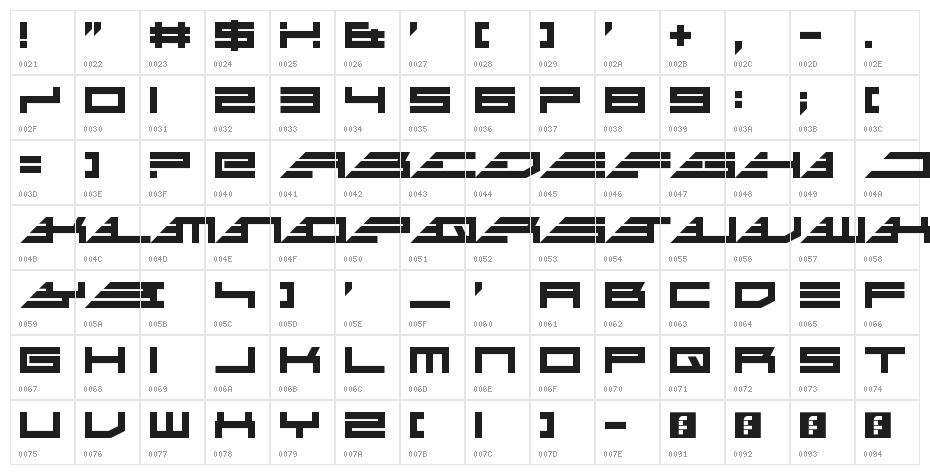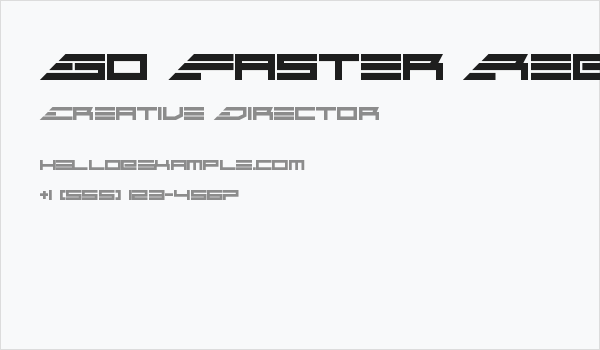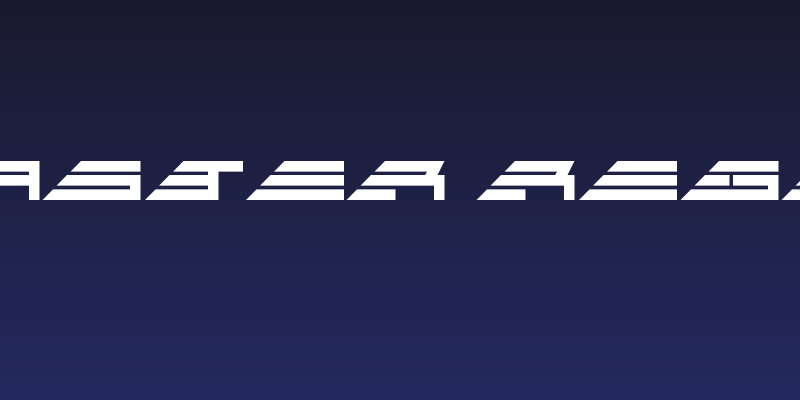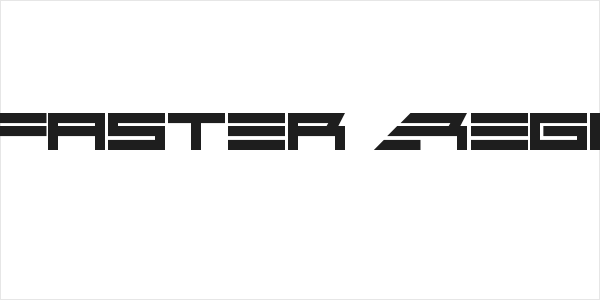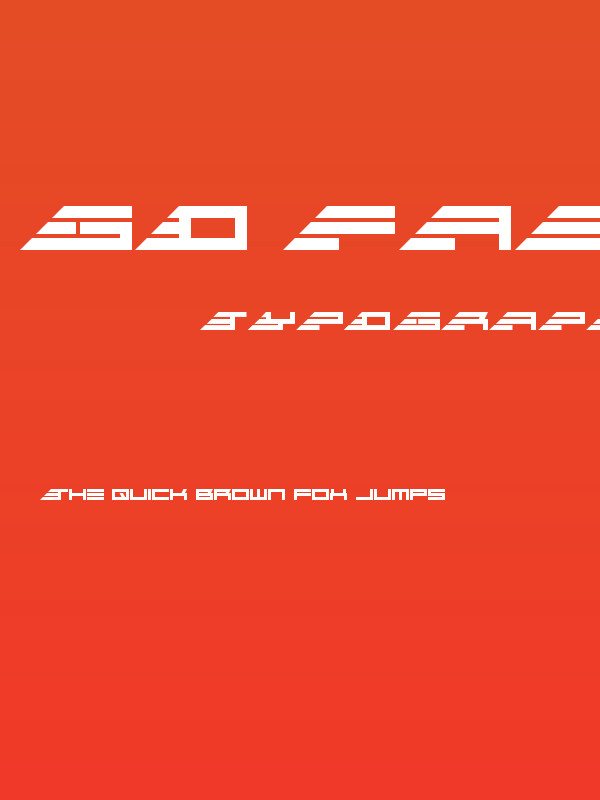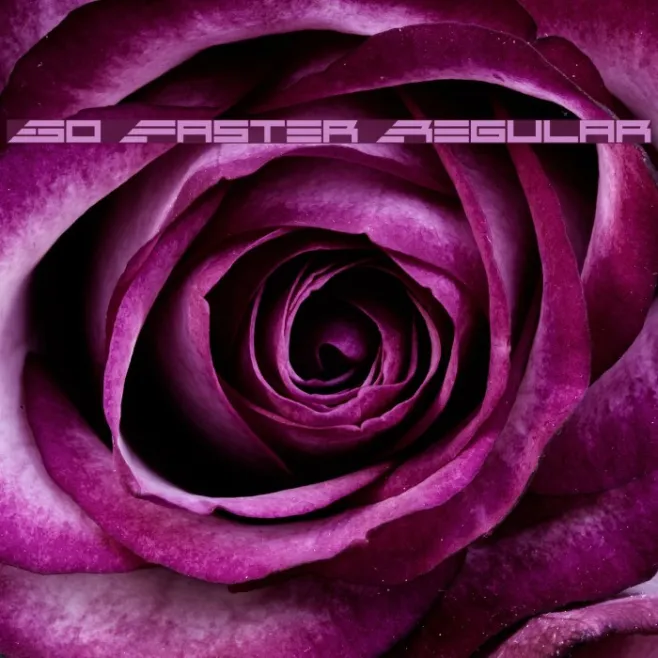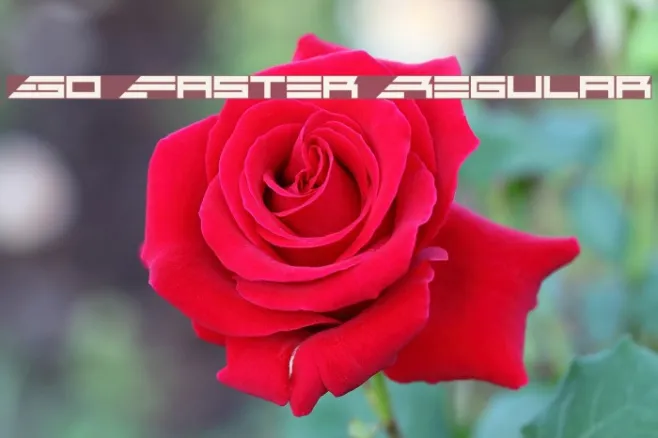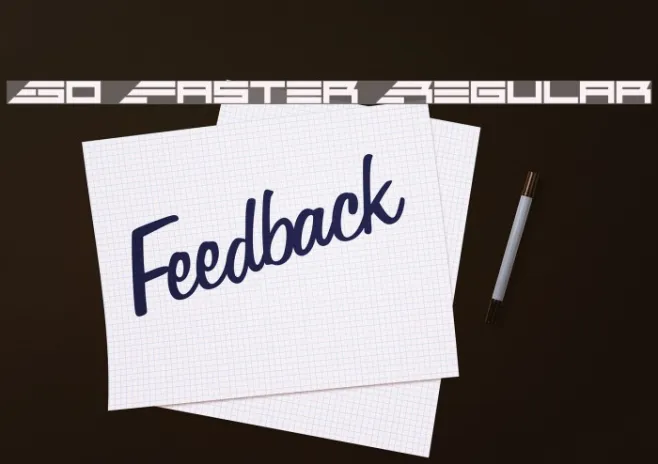
Go Faster Regular Font
Go Faster Regular Description
This font features a futuristic and dynamic design, characterized by sharp angles and geometric shapes. The uppercase letters have a distinct, bold appearance with a strong horizontal emphasis, creating a sense of speed and movement. The lowercase letters maintain the same angular style, ensuring consistency across the typeface. Numbers and special characters are designed to match the overall aesthetic, making them suitable for modern and tech-oriented projects. The font's unique style makes it stand out, ideal for attention-grabbing headlines or branding that requires a contemporary edge.